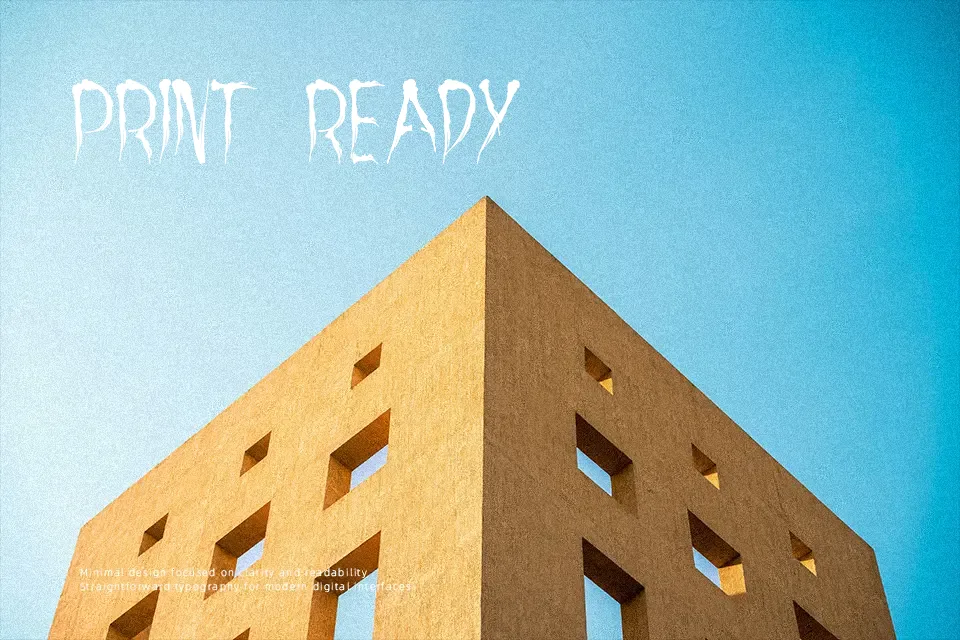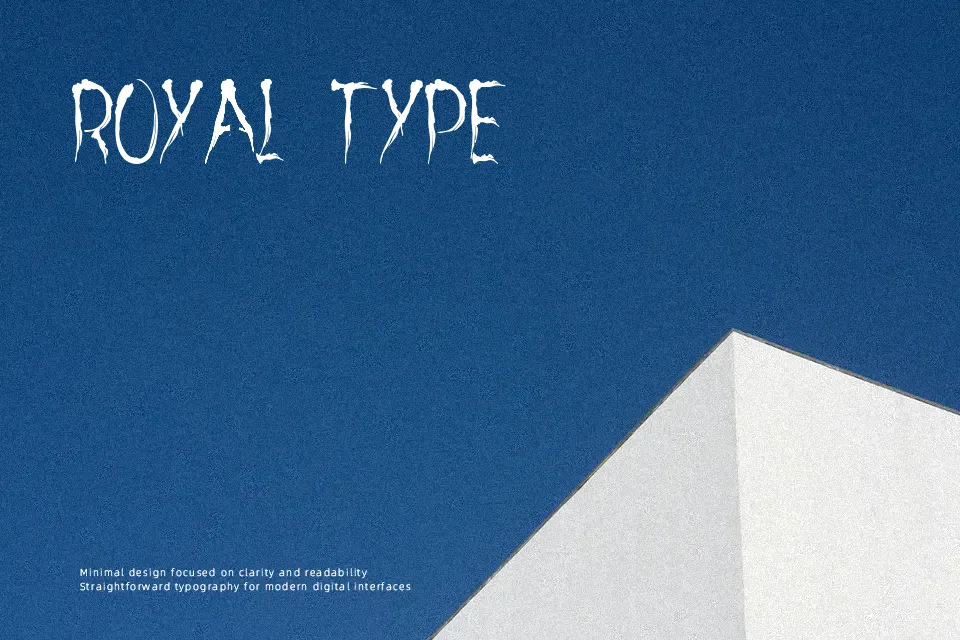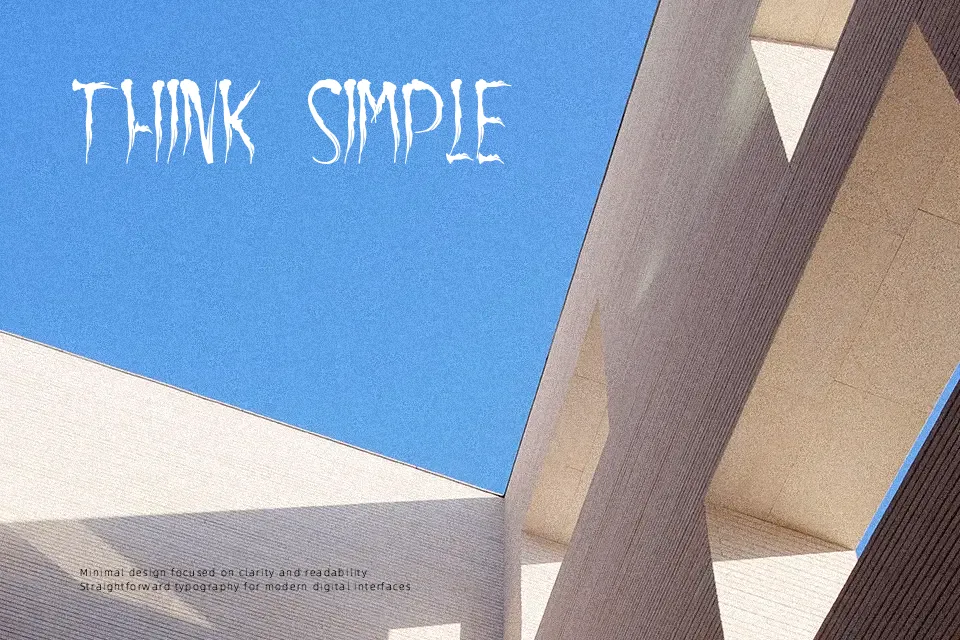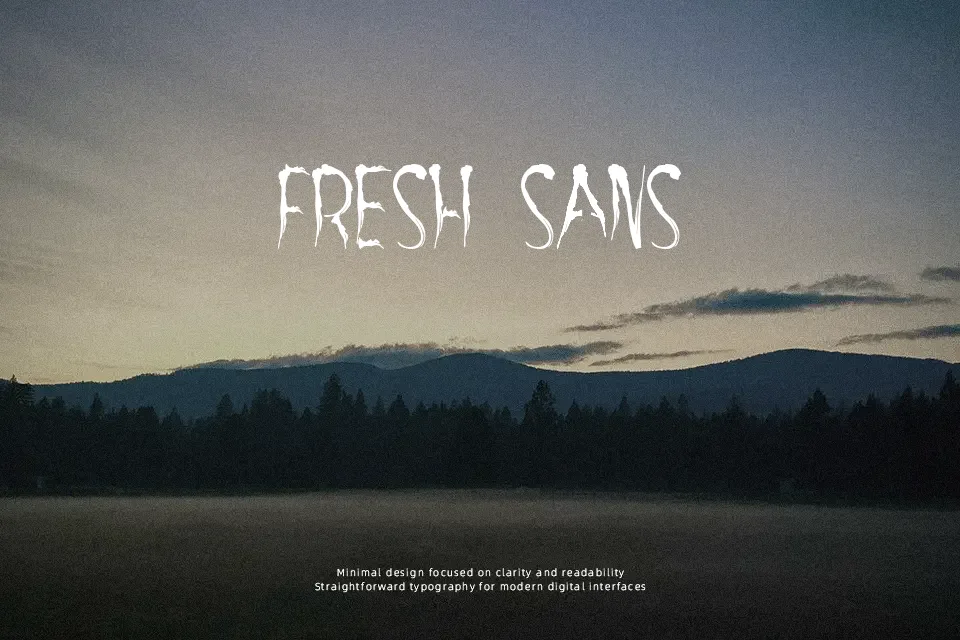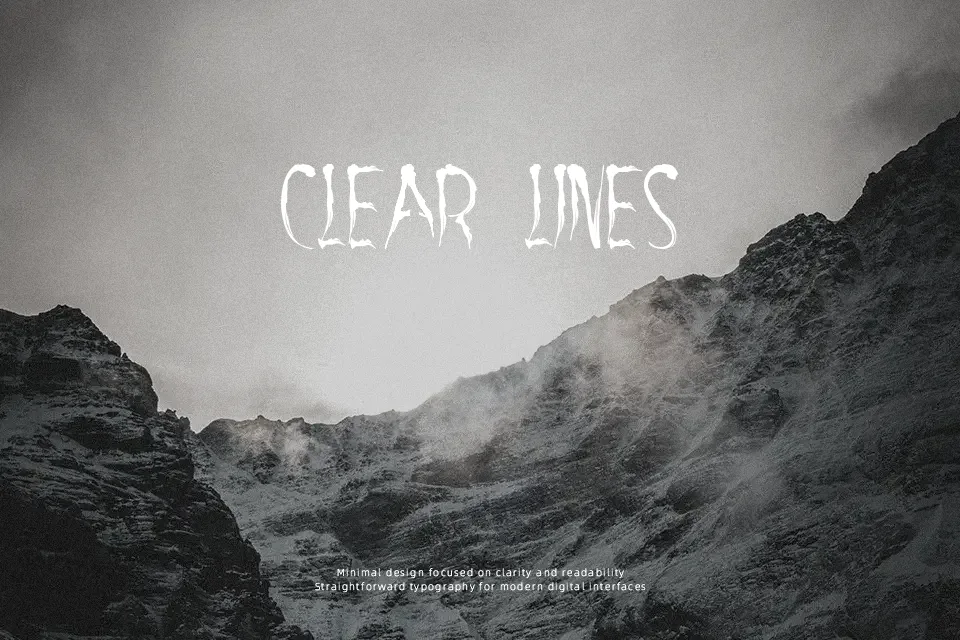
Aracnoide Font
Designed by Grafito Design
Aracnoide’s letterforms carry the irregular, elongated quality of something crawling — strokes twist at odd angles, spacing feels deliberately uneven, and the overall structure leans into visual unease without crossing into illegibility at display sizes. It sits firmly in the horror/decorative category, making it a reasonable pick for Halloween graphics, dark game titles, or spooky event branding where atmosphere matters more than readability. That said, it struggles badly at smaller sizes — the irregular stroke weights collapse quickly, making any body text or fine-print application a real mistake. Pair it with a clean, neutral typeface for supporting text; trying to run an entire layout through Aracnoide wears out the effect fast and muddies hierarchy.
Best For:- Halloween poster headers and event flyers
– Horror-themed game titles or cover art
– Spooky social media graphics
– Dark-themed merchandise and packaging accents
Not Ideal For:- Body text or long-form reading at any size
– Corporate or professional branding
– UI labels and navigation elements
– Children’s content or cheerful, light-toned projects
Perfect for halloween, packaging, and poster, with a dark and decorative style.